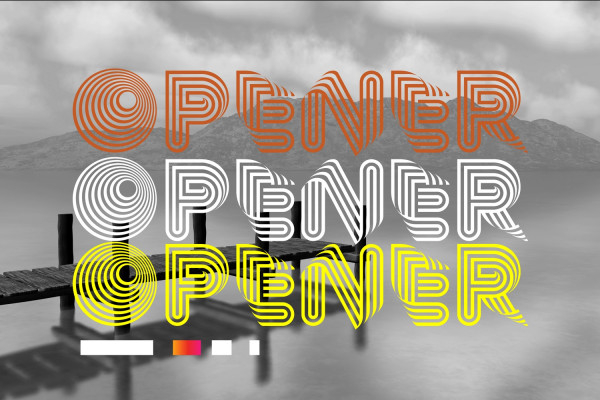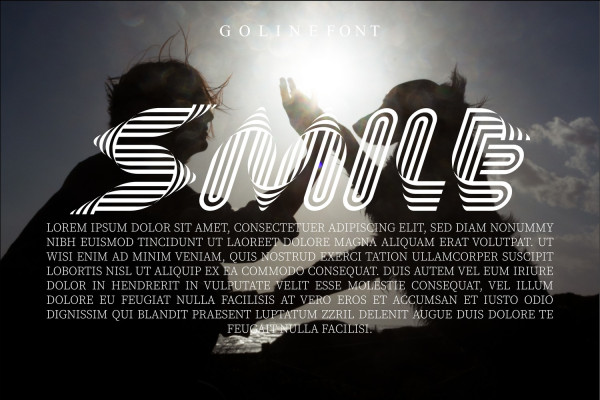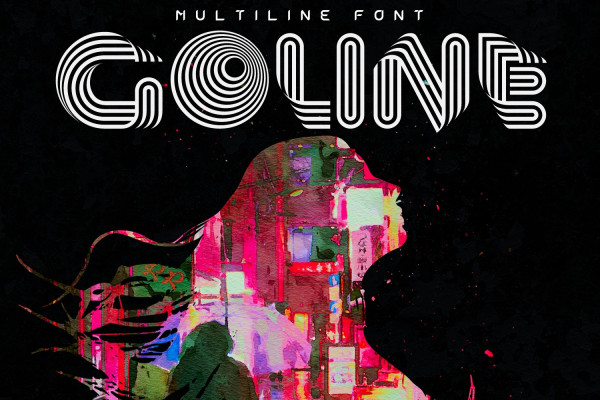
Goline Display Font
Goline Display Font is monogram font linear style, an elegant and innovative creative font that can be used as logo and branding, titles and headers, posters and banners in fields such as fashion, high technology, Internet and IT, business innovations, sports and entertainment, etc.